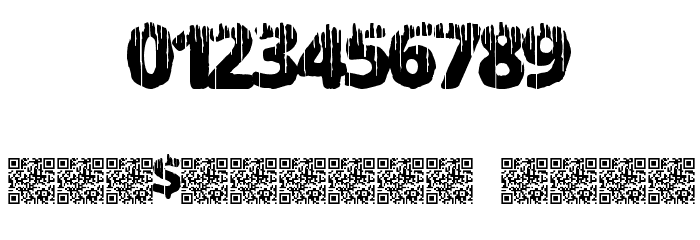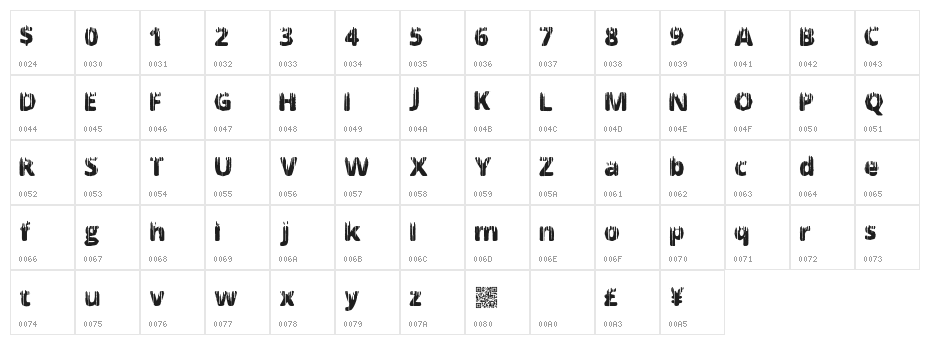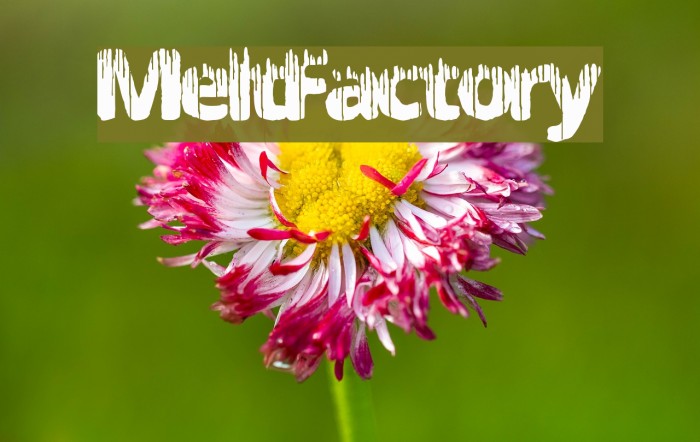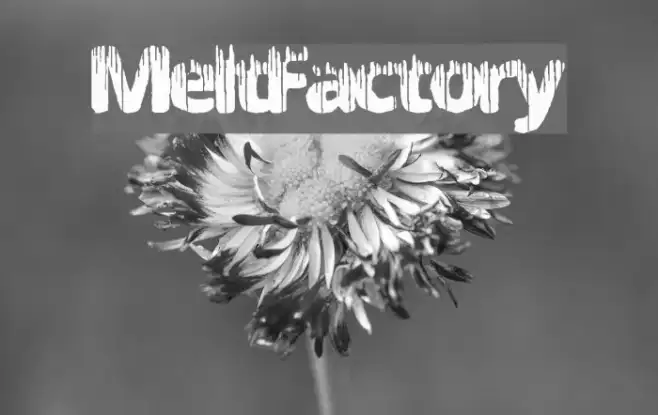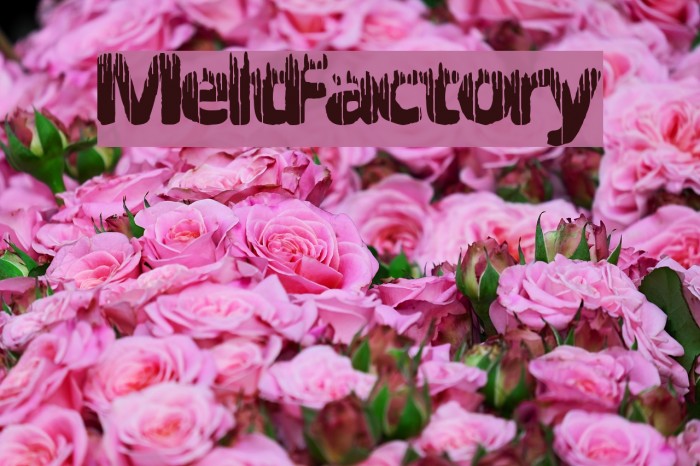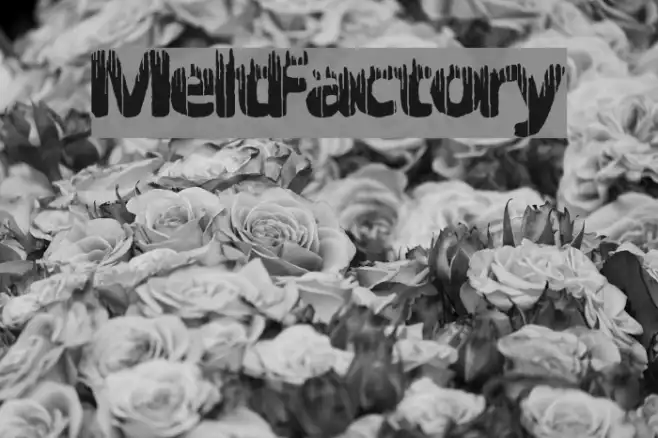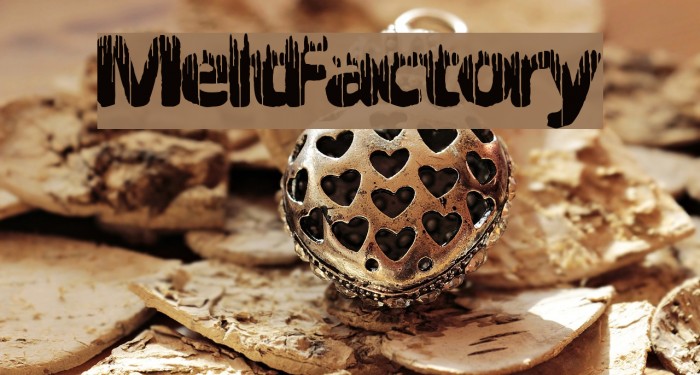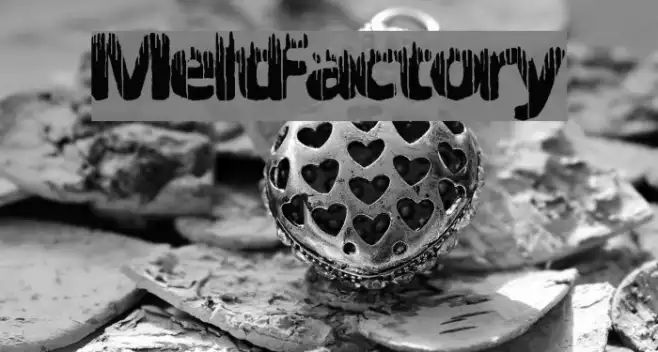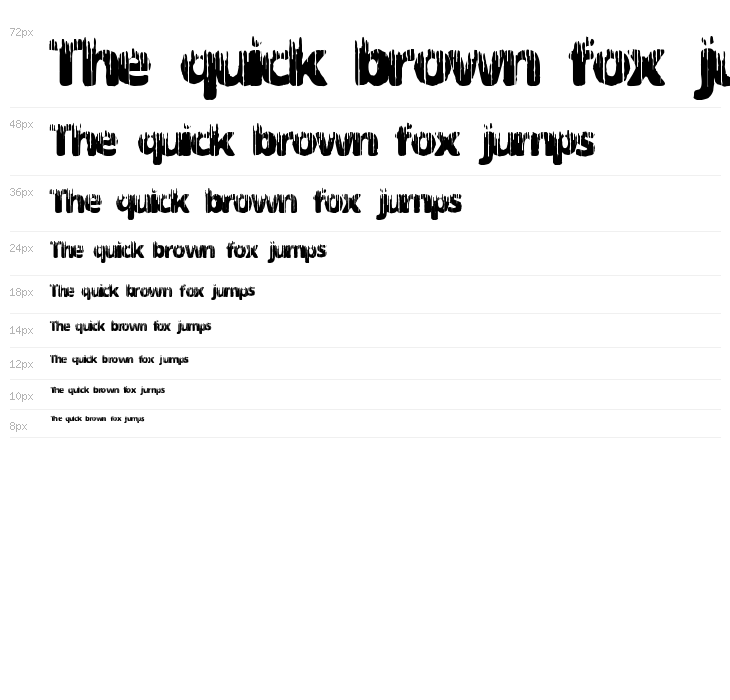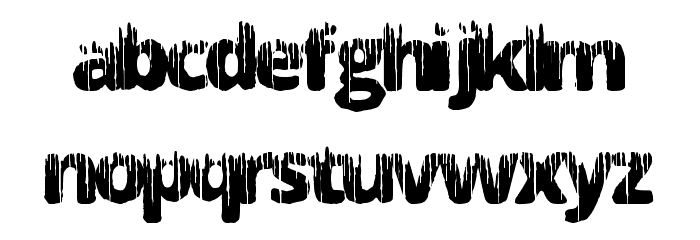
MeltFactory Font
MeltFactory Description
This font showcases a unique and striking design with a melting effect that gives the impression of letters dripping or dissolving. The uppercase and lowercase characters maintain a consistent style, with bold, thick strokes that appear to be melting downwards. This effect is consistent across numbers and special characters, adding a dynamic and edgy feel to the text. The font's distinctive appearance makes it ideal for creative projects that require a bold statement. Its artistic and unconventional style is sure to capture attention and leave a lasting impression.